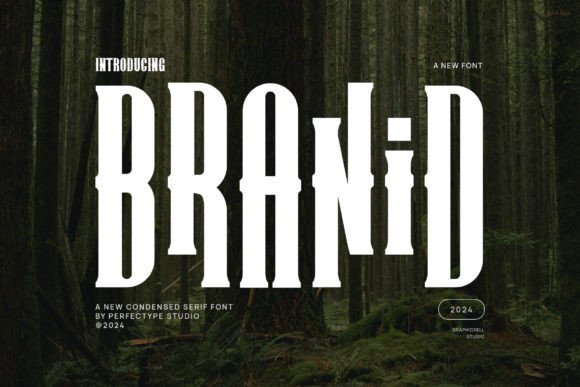
Branid Font: The Ultimate Elegant Serif Typeface for Modern Designs
In the world of typography, a font can make or break a design. When it comes to creating visually stunning and professional-looking projects, the right font is essential. Introducing Branid Font, an elegant serif typeface that combines classic sophistication with modern style. This versatile font is perfect for a wide range of applications, from branding projects and logos to wedding designs, social media posts, and more.
The Characteristics of Branid Font
Branid Font boasts a unique blend of traditional and contemporary elements, making it an ideal choice for designers seeking a refined and sophisticated look. Some of its key features include:
- Elegant Serif Design: Branid Font features a classic serif design with subtle flair, perfect for creating luxurious and high-end designs.
- Classy and Modern Style: This font seamlessly blends traditional elegance with modern sensibilities, making it suitable for a wide range of applications.
- High Readability: Branid Font is designed with readability in mind, ensuring that your text is clear and easy to read, even at small sizes.
Uses of Branid Font
The versatility of Branid Font makes it an excellent choice for various design projects, including:
- Branding Projects: Create a lasting impression with Branid Font’s elegant and sophisticated design, perfect for logos, business cards, and brand guidelines.
- Wedding Designs: Add a touch of luxury and romance to your wedding designs, including invitations, stationery, and decorations.
- Social Media Posts: Elevate your social media presence with Branid Font’s modern and stylish design, perfect for creating engaging and shareable content.
- Advertisements: Grab attention with Branid Font’s bold and elegant design, ideal for print and digital advertisements.
- Product Packaging: Create eye-catching product packaging with Branid Font’s sophisticated design, perfect for luxury brands and high-end products.
- Labels and Photography: Add a touch of elegance to your labels, photography, and watermarks with Branid Font’s refined design.
- Invitations and Stationery: Create beautiful invitations, stationery, and greeting cards with Branid Font’s classic and sophisticated design.
The Benefits of Using Branid Font
By choosing Branid Font for your design projects, you can enjoy a range of benefits, including:
- Unique and Professional Look: Branid Font’s elegant serif design and modern style ensure that your projects stand out from the crowd.
- High Versatility: This font is suitable for a wide range of applications, from branding and advertising to wedding designs and social media posts.
- Easy to Read: Branid Font’s high readability ensures that your text is clear and easy to read, even at small sizes.
Tips for Using Branid Font Effectively
- Use Ligatures and Glyphs: Take advantage of Branid Font’s PUA encoding to access a wide range of ligatures and glyphs, adding a touch of elegance to your designs.
Branid Font is an exceptional elegant serif typeface that combines classic sophistication with modern style. With its high readability, versatility, and PUA encoding, this font is perfect for a wide range of design projects. Whether you’re working on branding projects, wedding designs, social media posts, or more, Branid Font is an excellent choice. So why wait? Download Branid Font today and take your designs to the next level!
- What is Branid Font? Branid Font is an elegant serif typeface that combines classic sophistication with modern style.